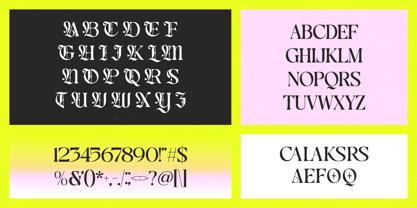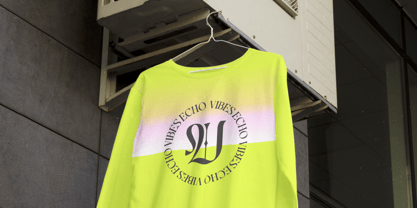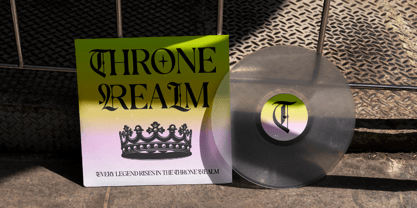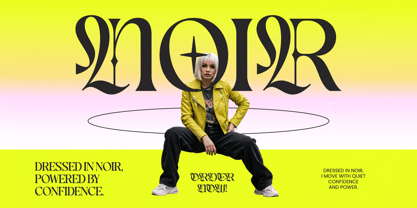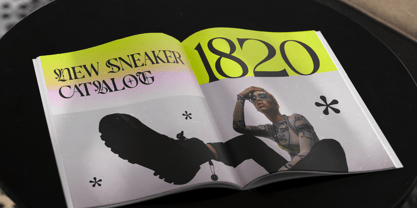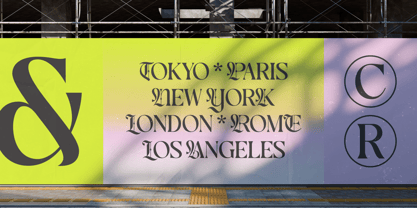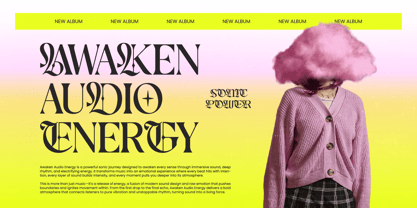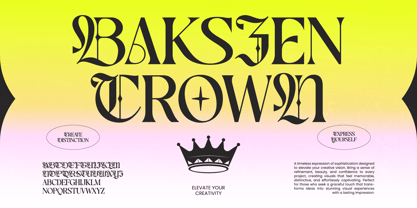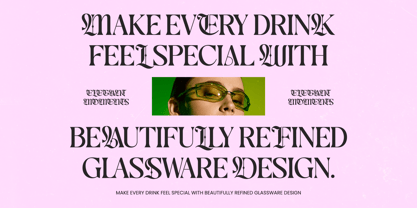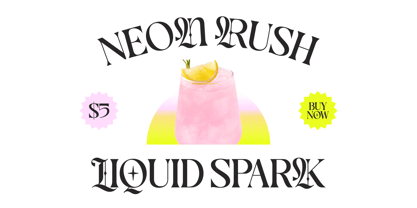
Bakszen Crown
by Timelesstype Studio
The Bakszen Crown Font Family was designed by Heru Utama Putra and published by Timelesstype Studio. Bakszen Crown contains 2 styles and family package options. More about this family
Command attention with a fusion of historical grandeur and contemporary edge using Bakszen Crown - Blackletter Display. This high-contrast typeface masterfully blends classic medieval character with modern versatility, making it a standout choice for any creative professional. With its bold gothic-style architecture and refined stylistic alternates, the font provides a powerful visual presence that demands to be seen in any premium design environment.
Bakszen Crown